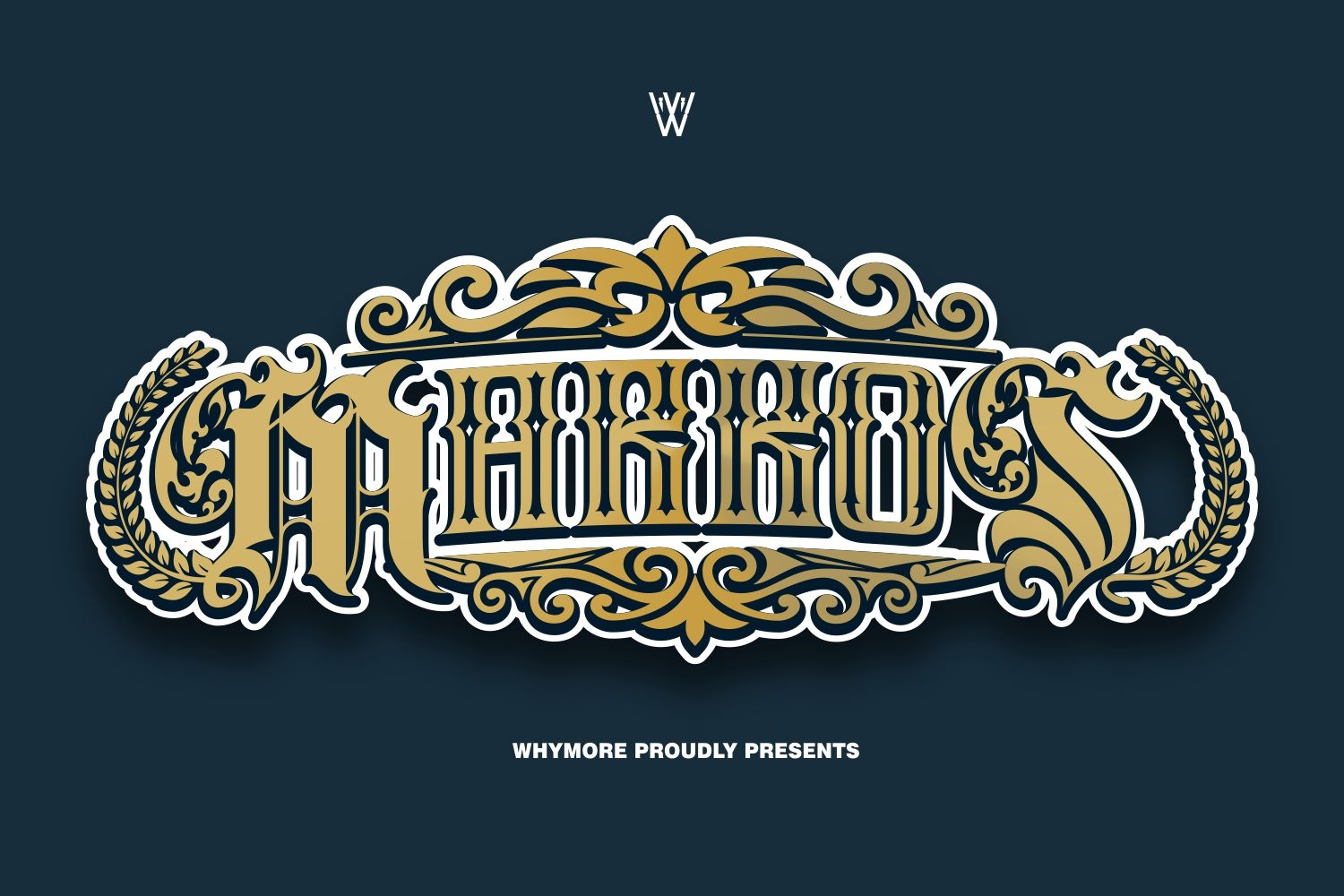
Markos is an ornate blackletter display font inspired by vintage gothic lettering, heraldic emblems, medieval typography, and classic ornamental design. Featuring dramatic blackletter forms, decorative flourishes, and elegant frame-like details, Markos is perfect for logos, badges and vintage branding.
Markos